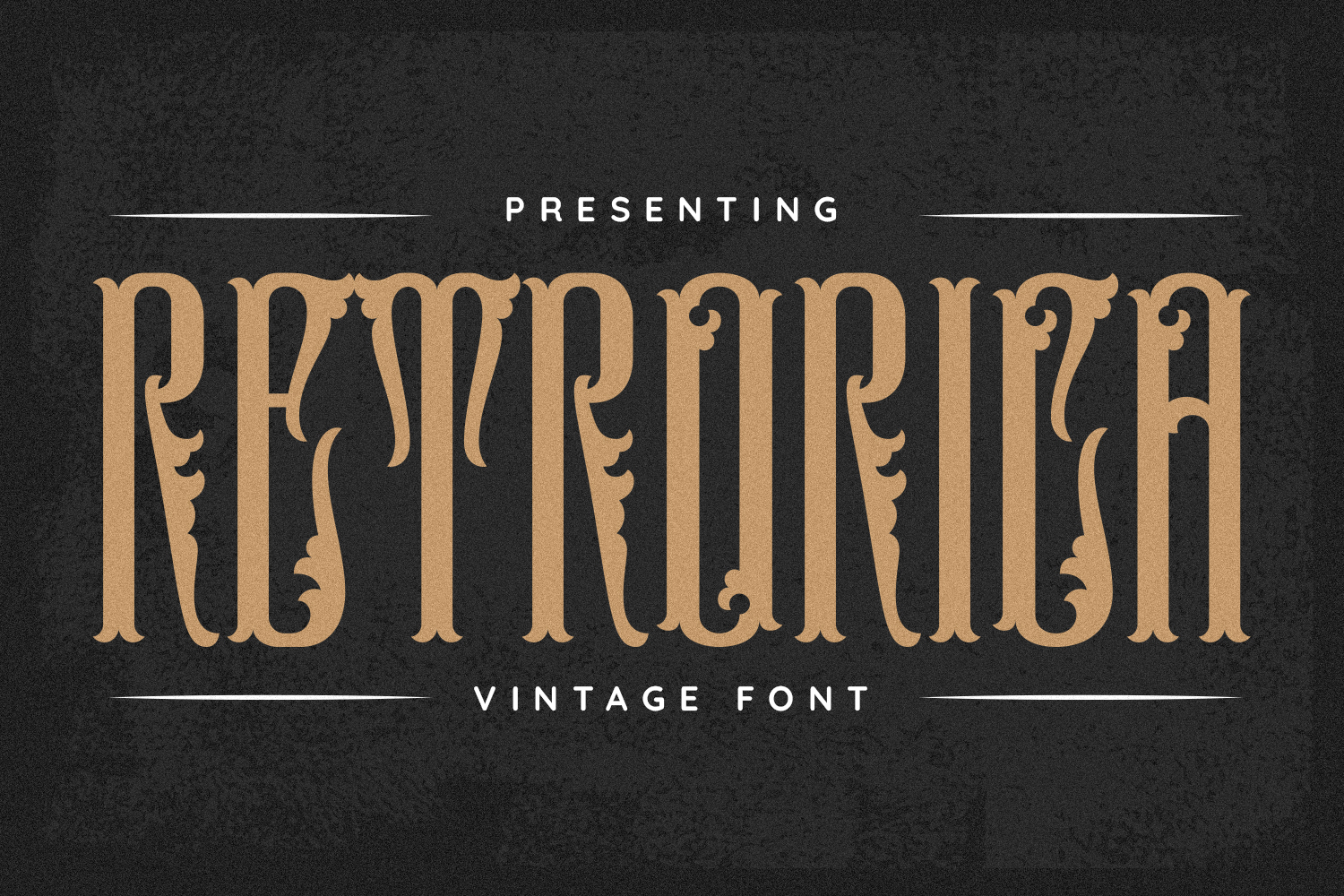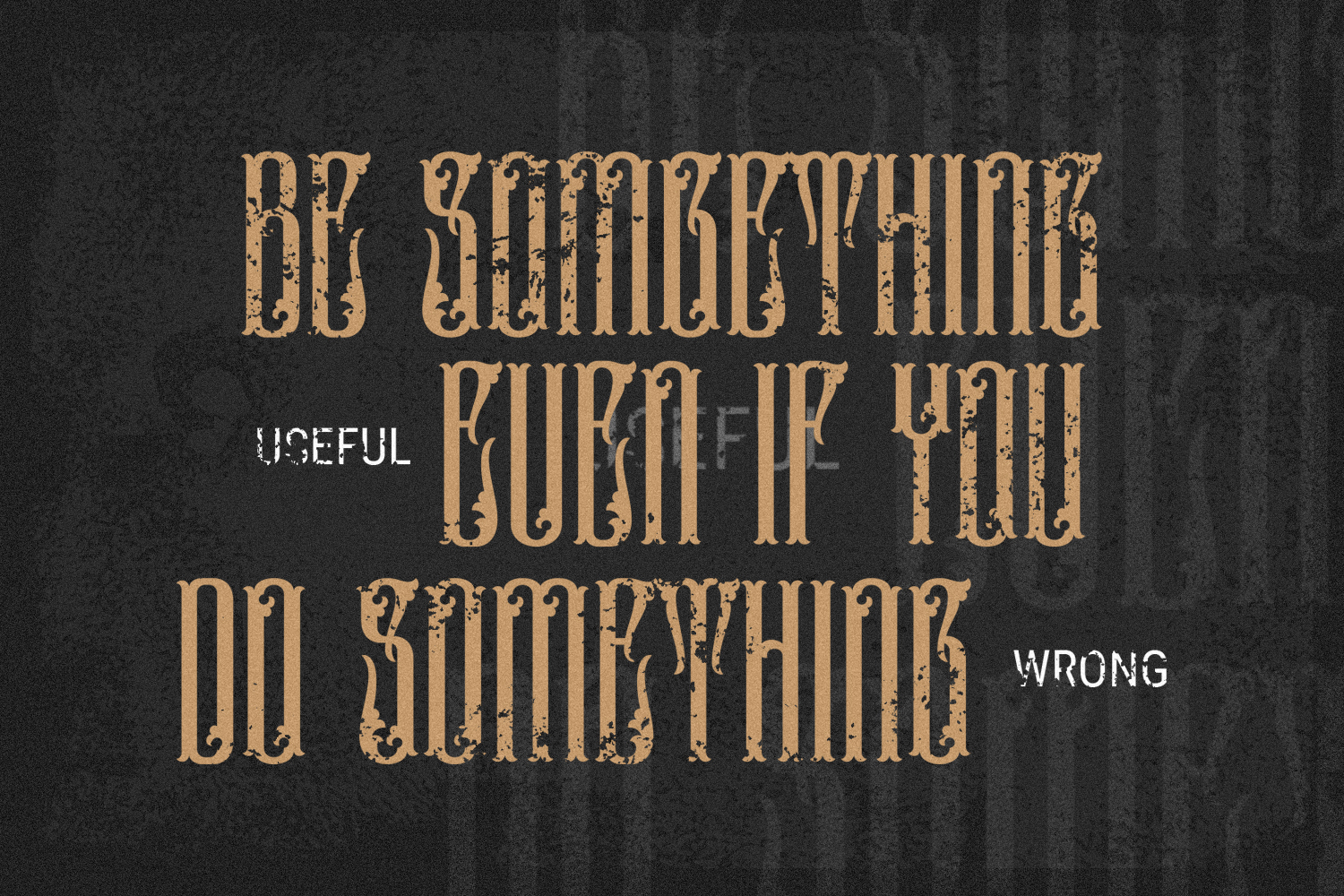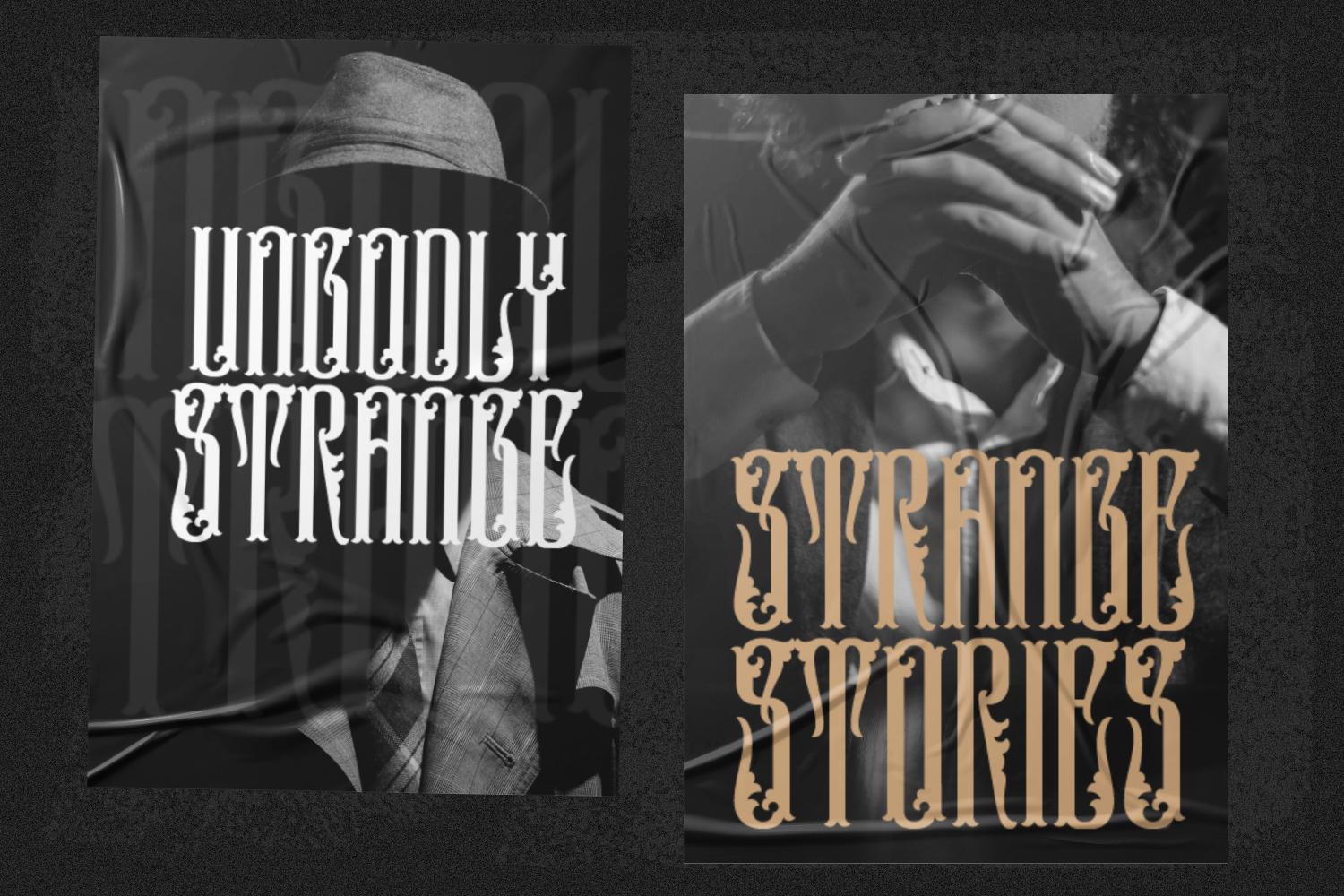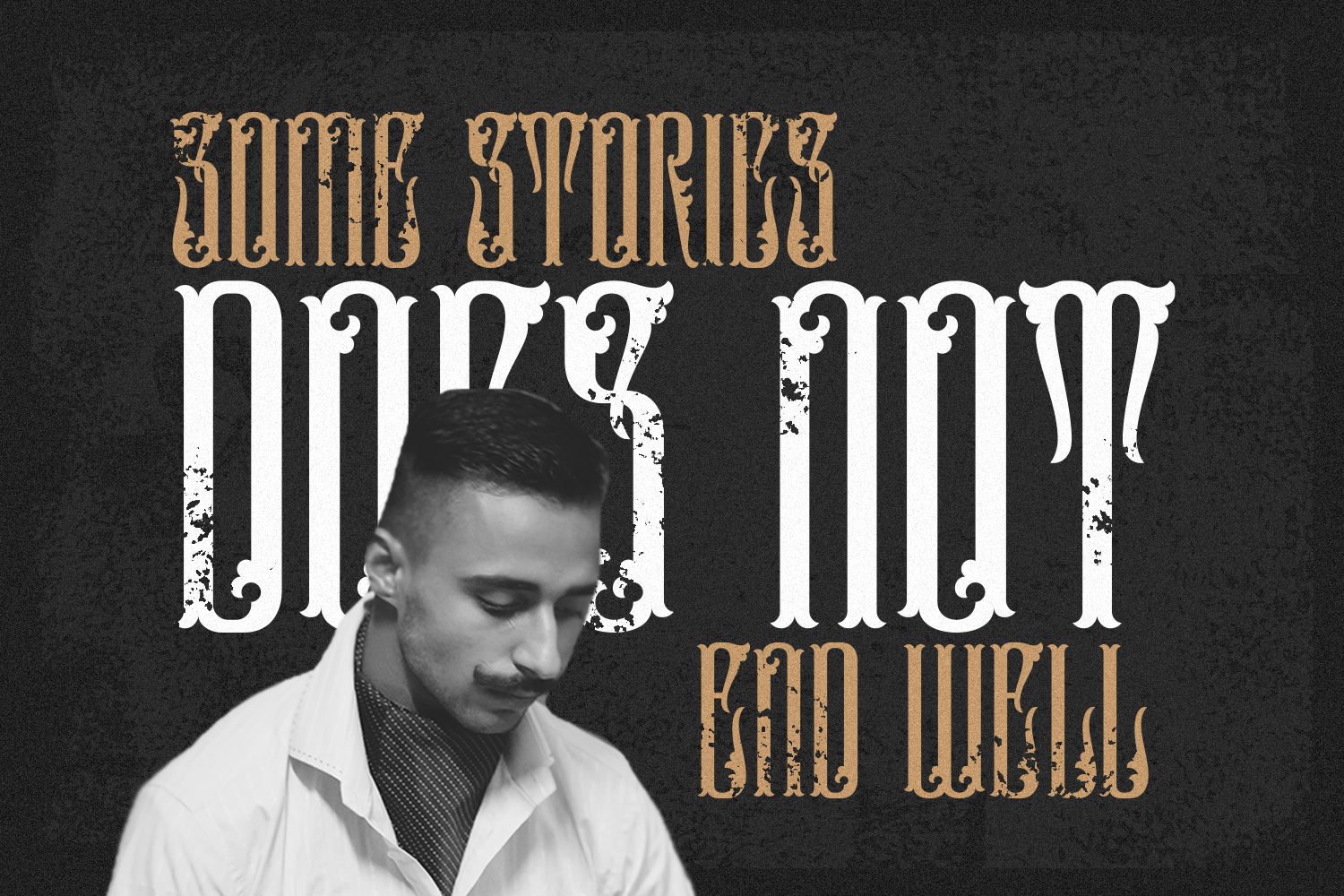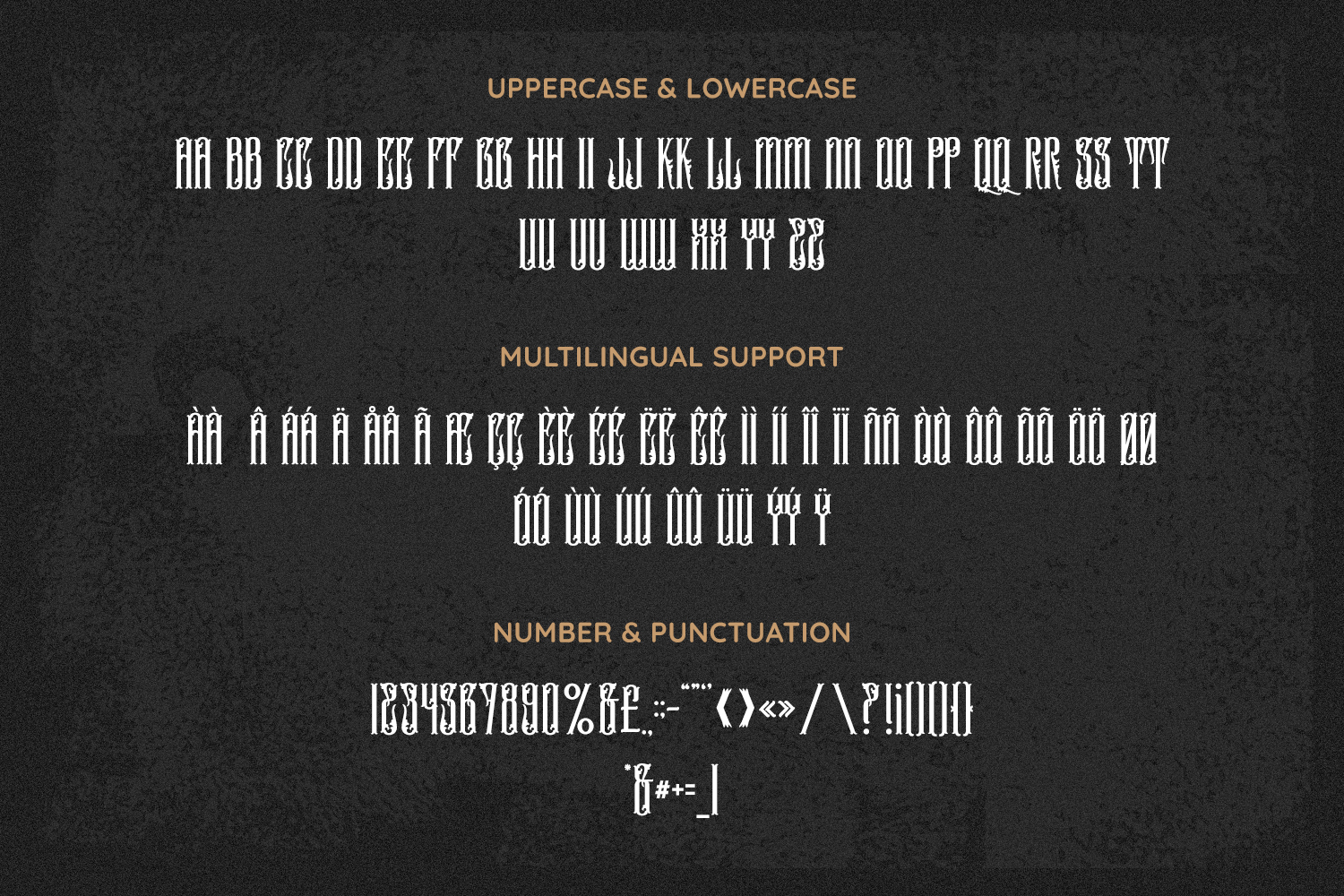
Retrorica is a bold and ornamental vintage font that merges Victorian aesthetics with elongated display proportions. Each letterform is designed with dramatic vertical stretch and intricate flourishes that echo old signage, gothic posters, and circus visuals. This font radiates strong character, making it ideal for editorial headlines, event posters, or product branding with a vintage flair.
The decorative detailing and narrow structure give Retrorica a unique edge, especially when paired with textured backgrounds or gritty overlays. It includes uppercase, lowercase, numbers, punctuation, and multilingual support, making it both versatile and impactful for bold typographic compositions.
Retrorica